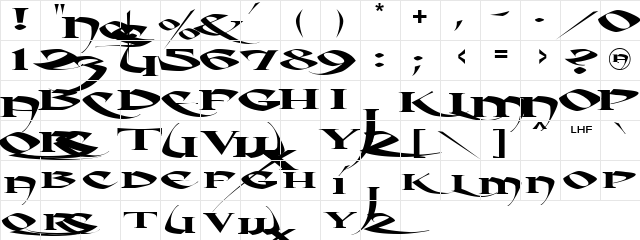
LHF Crouching Tiger REG Regular
Design Context for LHF Crouching Tiger REG
LHF Crouching Tiger REG is a composed and adaptable typeface that performs quietly and consistently across a wide range of design contexts.